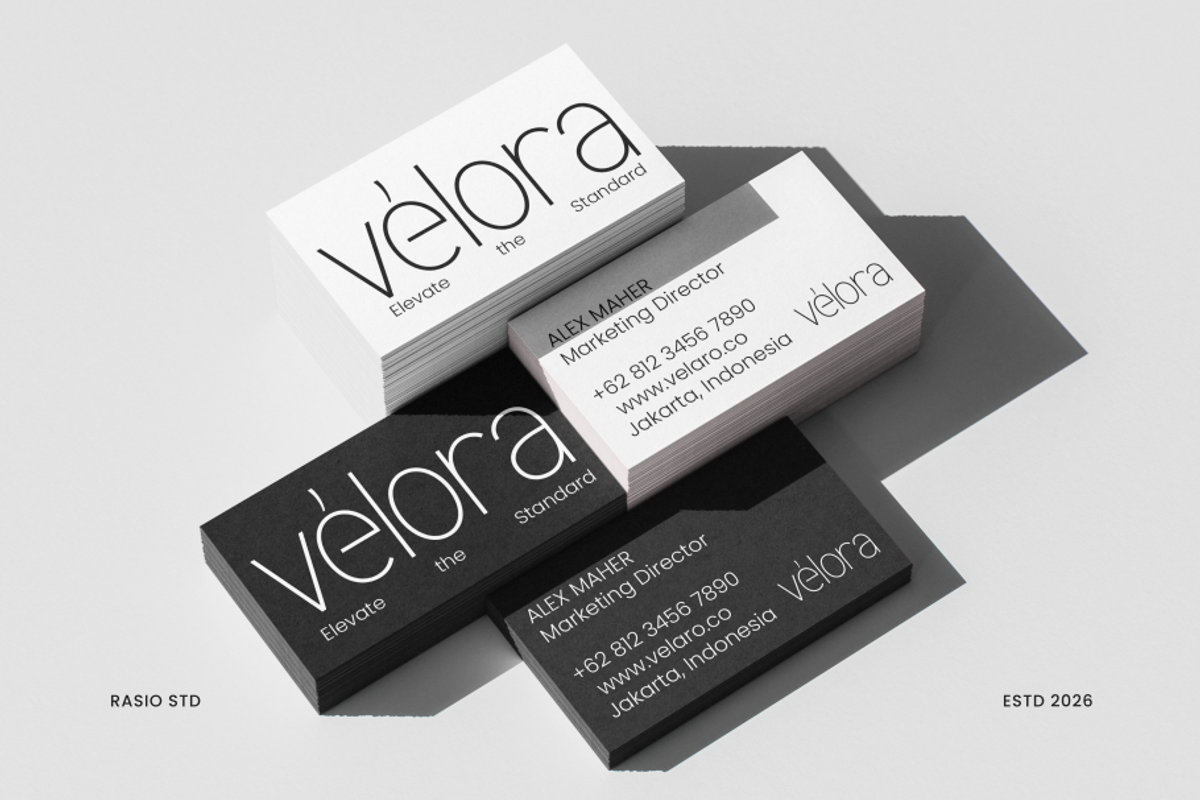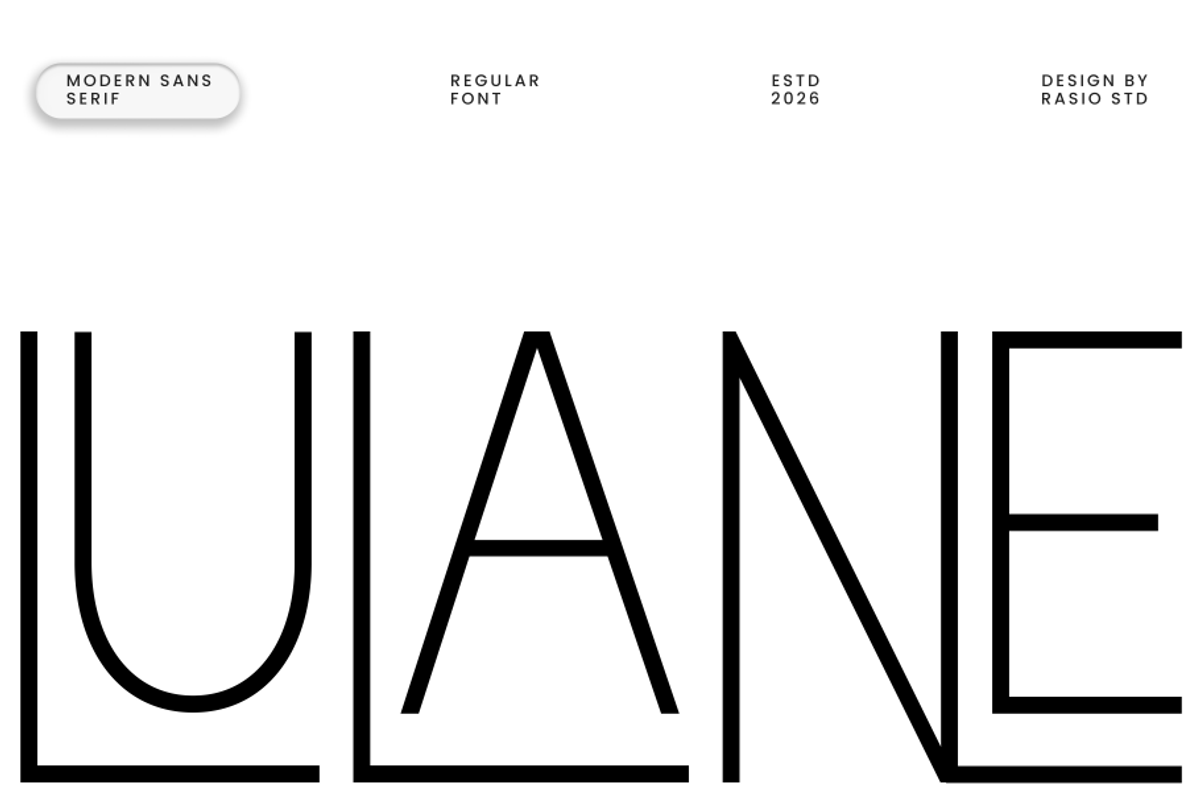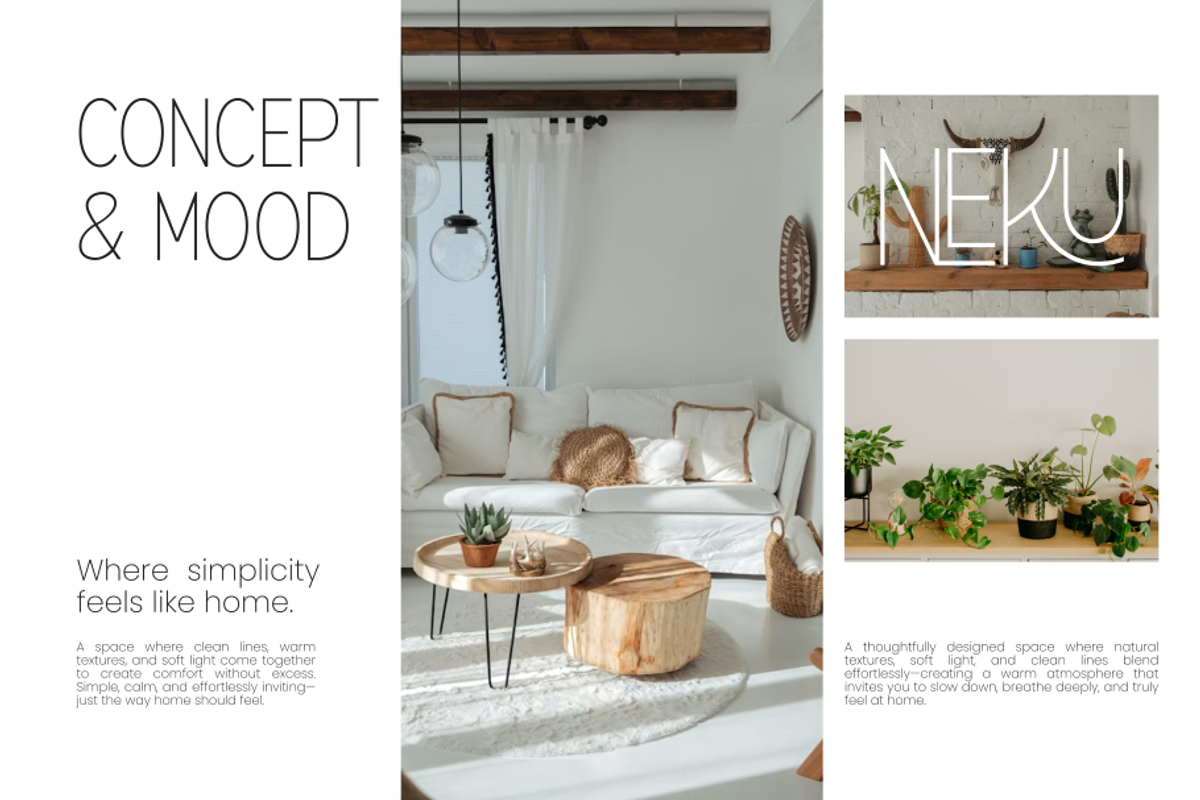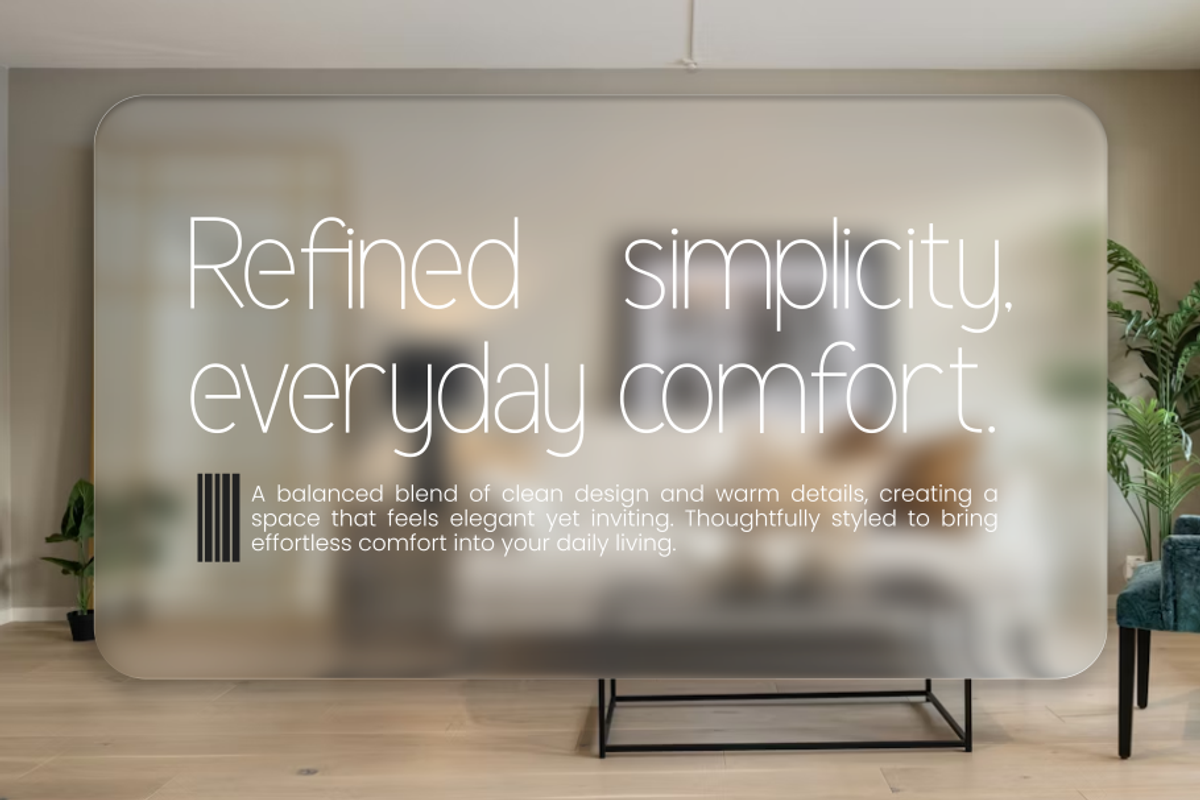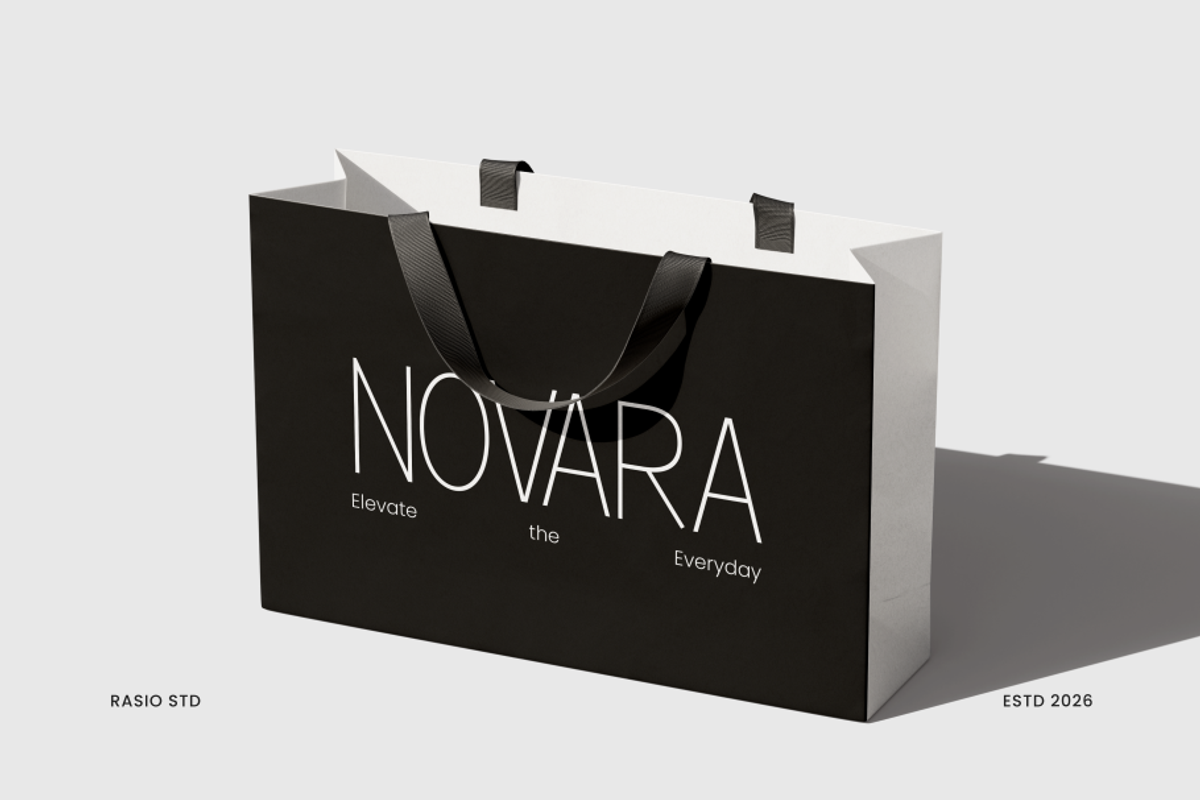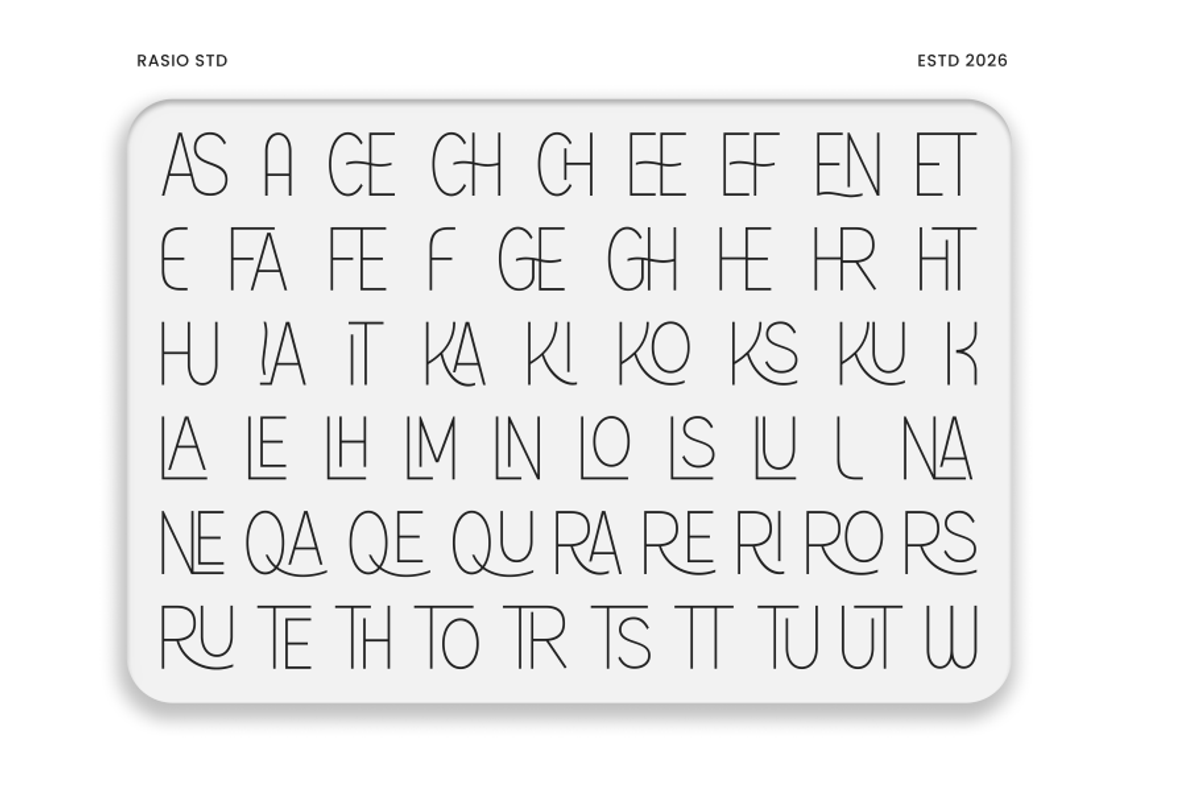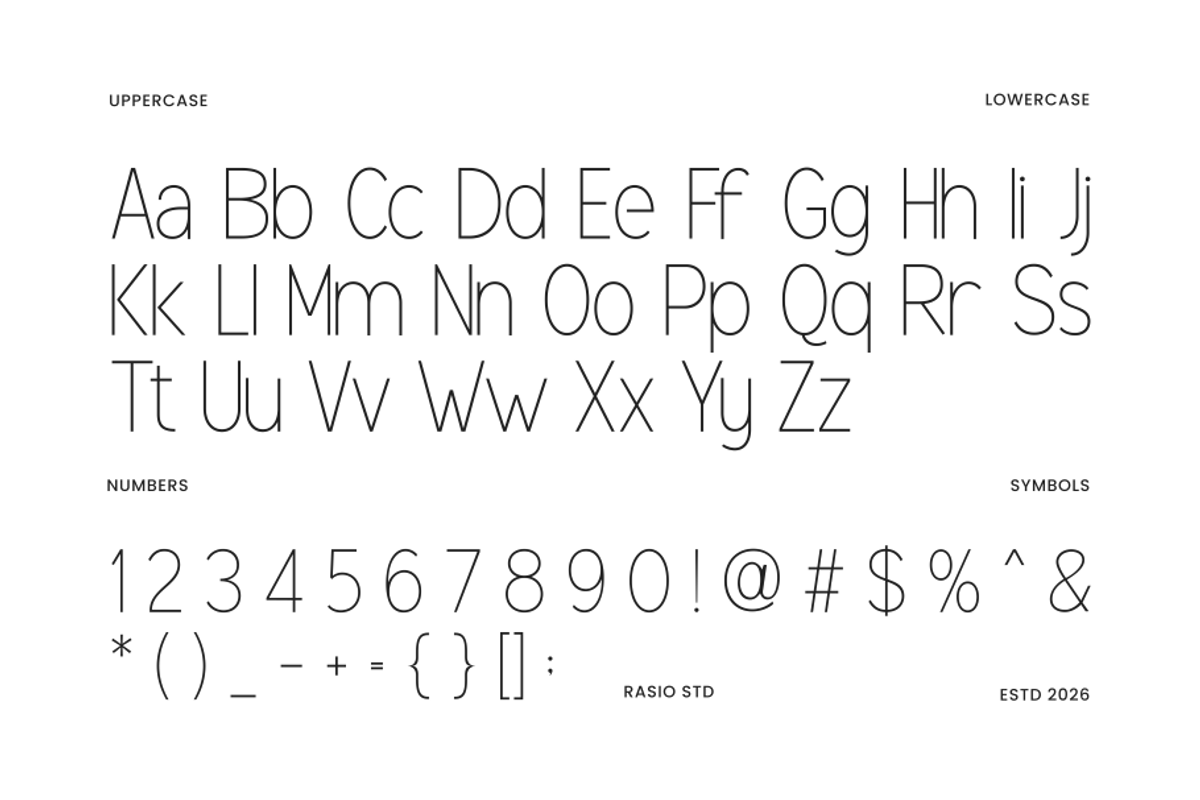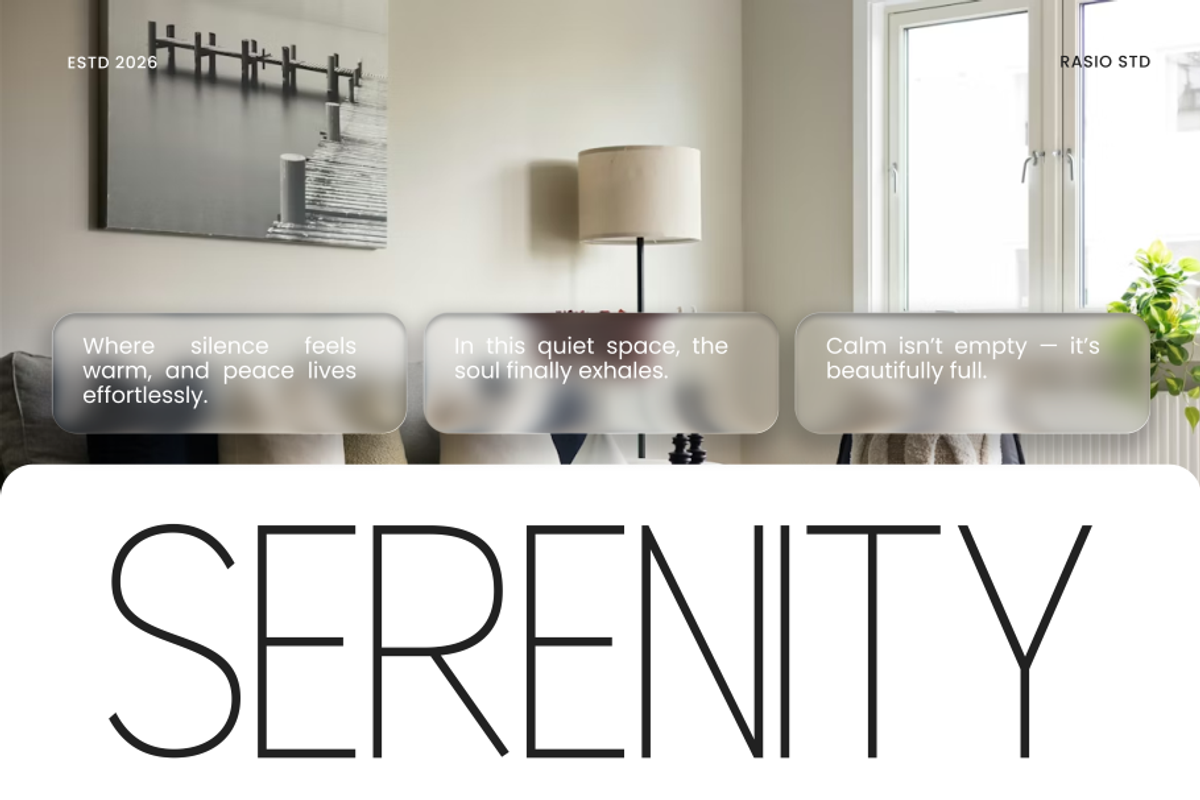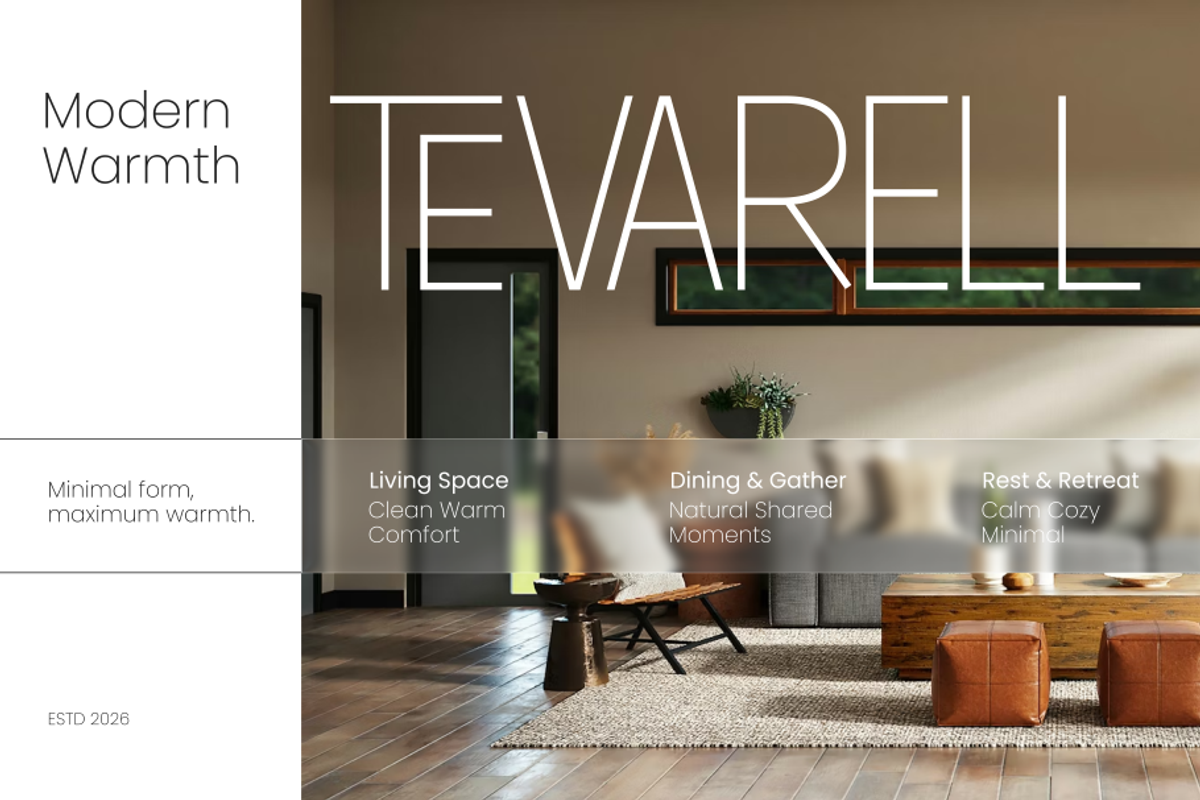
Lulane Modern Sans Serif Font
Lulane is a modern minimal sans-serif typeface designed with clean lines, balanced proportions, and refined simplicity. Inspired by contemporary architecture and modern interior aesthetics, this font delivers a calm, sophisticated visual tone suitable for professional design projects. Its lightweight structure and elegant geometry create a sense of clarity and modern warmth, making it perfect for editorial layouts, branding identities, websites, and modern lifestyle visuals.
Lulane is designed for modern design environments where clarity, simplicity, and elegance are essential. Its clean and minimal structure makes it ideal for branding identities, editorial design, websites, architecture presentations, lifestyle branding, and modern interior design visuals. The font delivers a refined aesthetic that works seamlessly across both digital and print projects.
- Modern geometric sans-serif design with clean minimalist structure
- Thin monoline strokes creating a sleek and contemporary appearance
- Smooth rounded curves balanced with sharp linear forms
- Elegant proportions that enhance clarity and visual harmony
- Carefully spaced characters for refined display and modern layouts
- Brand identity systems seeking a clean, calm, and contemporary tone
- UI/UX design templates for modern tech products and digital platforms
- Editorial magazines, architecture portfolios, and minimalist book layouts
- Product packaging and labels that require a refined, modern aesthetic
- Social media templates and marketing visuals with sleek minimalist style